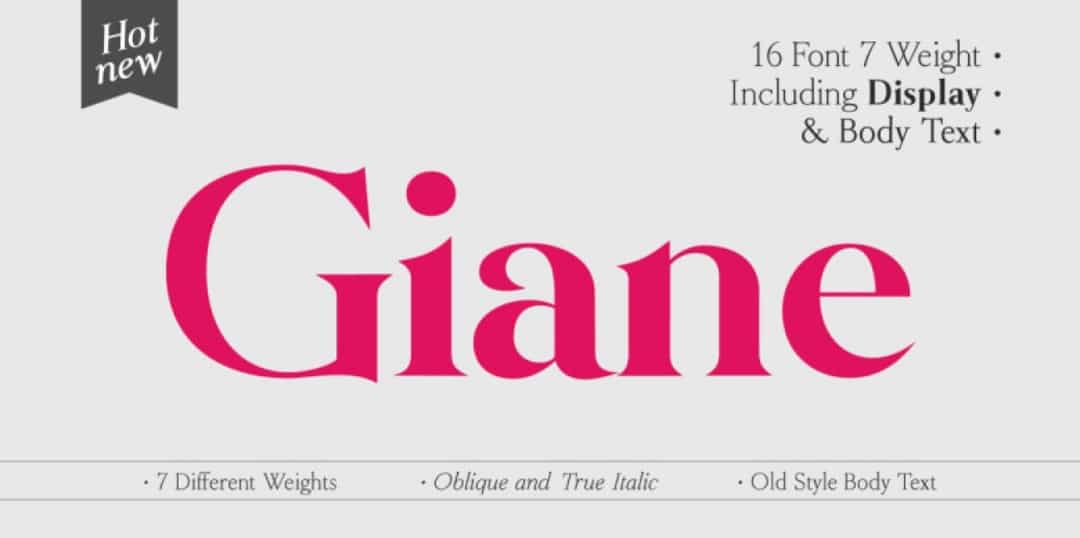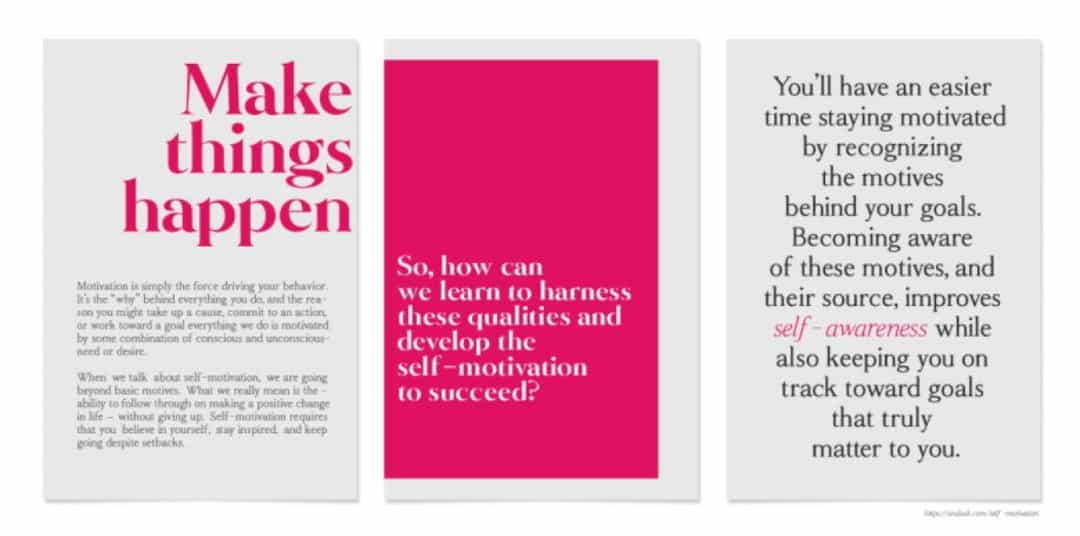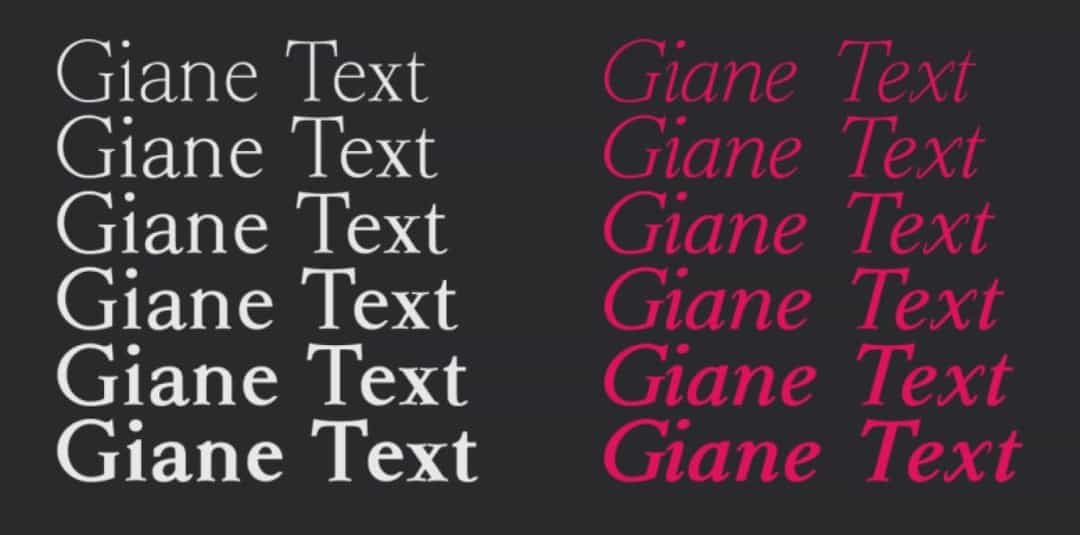
Giane is an serif typeface family featuring old style body text and contemporary display fonts, creating an extremely harmonious combination that makes Giane an easy read and stunning display font. Giane Text was inspired by old-fashioned fonts but modified with more contemporary serif designs for greater accessibility and readability.